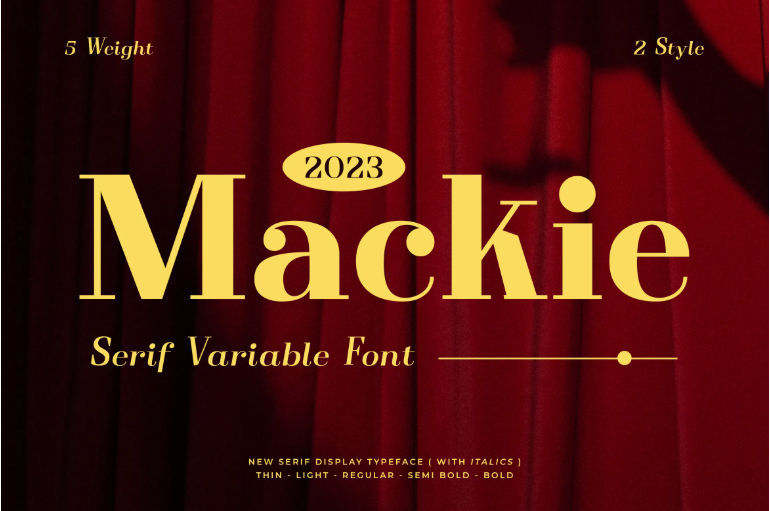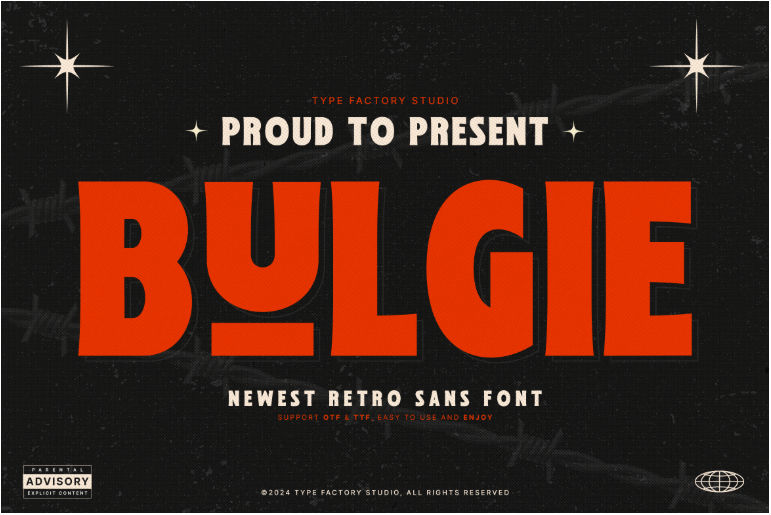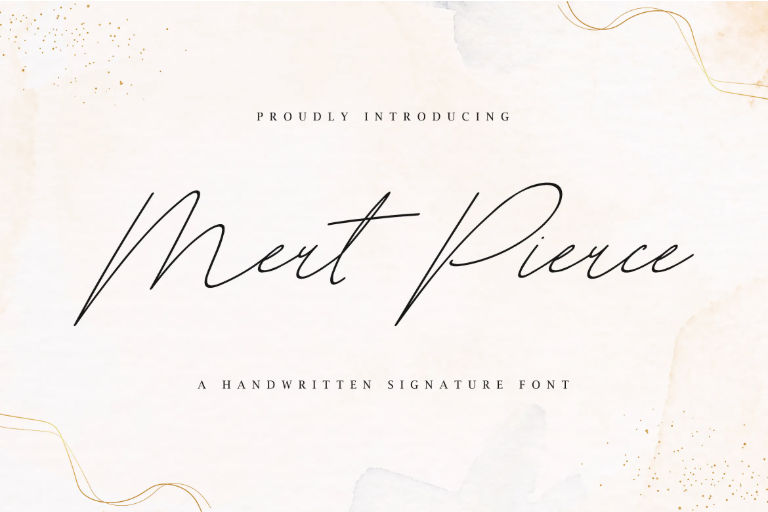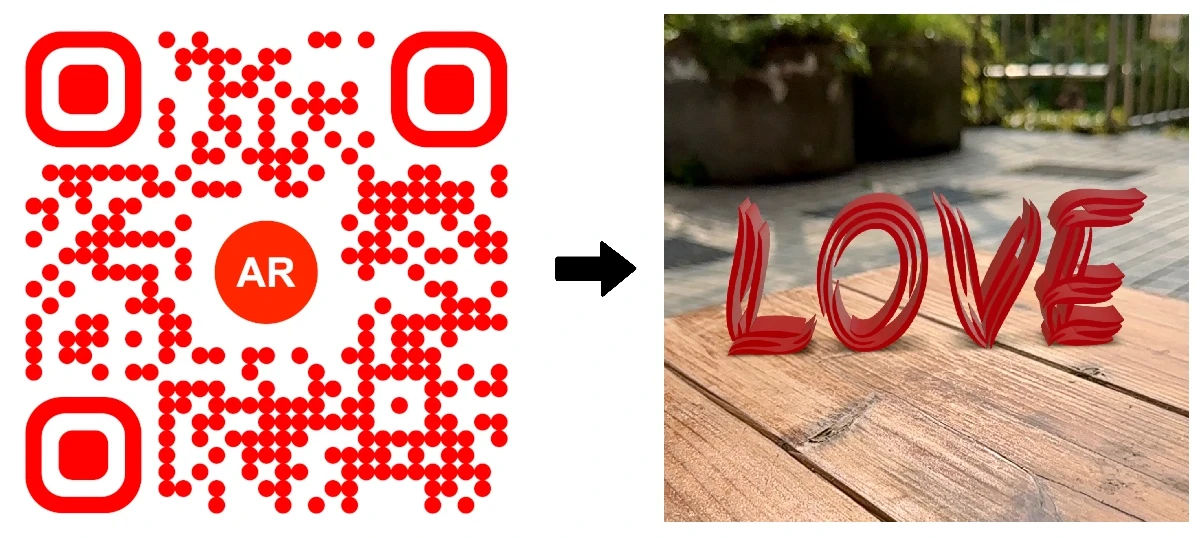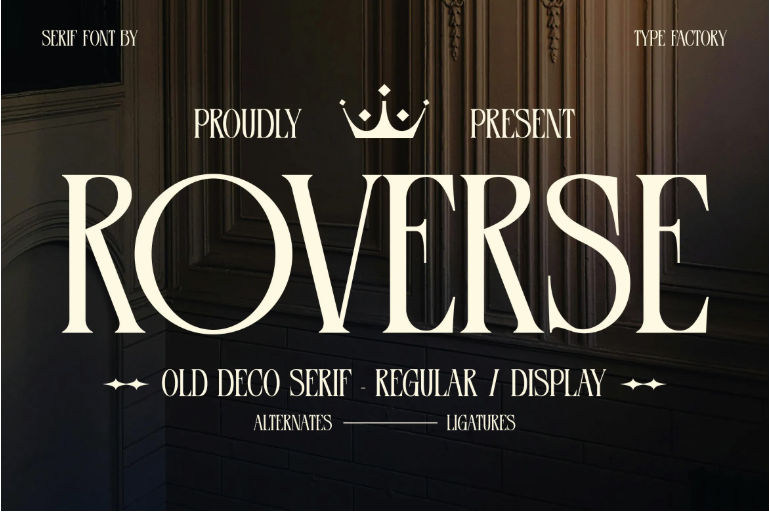
Top 8 Font Design Trends for 2025 – Best Typography Styles to Watch
The Evolution of Font Design Trends in 2025
Typography is constantly evolving, and 2025 is set to introduce some groundbreaking font design trends. Designers are finding fresh ways to mix creativity with technology, resulting in exciting new typefaces that enhance branding, user experience, and digital aesthetics. From AI-generated fonts to nostalgic retro styles, this year’s trends focus on flexibility, personality, and function.
If you’re a graphic designer, web developer, or brand strategist, staying updated on the latest font design trends for 2025 will help you create more impactful and modern designs. Let’s explore the biggest typography styles shaping the future of digital and print media.
1. AI-Generated Fonts: The Future of Type Design?
How AI is Transforming Font Creation
Artificial intelligence is revolutionizing font design trends in 2025, allowing designers to craft unique, data-driven typefaces. With AI-assisted design tools, fonts can now be tailored to specific branding needs, making customization easier than ever. AI-generated fonts for graphic design are gaining popularity among creatives looking for originality and efficiency.
font generated by AI launched by Visual Editor by Picsart
Beyond automated type generation, AI tools enhance existing fonts by offering intelligent kerning, automatic readability adjustments, and adaptive font styles that change based on user behavior. As AI advances, expect to see fonts that dynamically shift based on context, improving readability across digital platforms.
2. Variable Fonts Are Taking Over
Why Variable Fonts Are the Future
Variable fonts have been on the rise, but in 2025, they’re set to become an industry standard. These fonts offer multiple styles in one file, making digital design more efficient and dynamic. More websites and apps are using variable fonts for modern typography, ensuring seamless, adaptive typography that enhances UI/UX performance.
By reducing the number of font files needed, variable fonts improve website performance, leading to faster loading times and better SEO rankings. Brands are leveraging this trend to create personalized typography experiences based on user preferences and device settings.
3. Retro Revival: Nostalgic Typefaces Make a Comeback
The Power of Nostalgia in Design
Everything old is new again! Fonts inspired by the early 2000s, the bold 80s, and groovy 70s are resurging in font design trends for 2025. Whether it’s playful bubble letters or chunky retro serifs, these vintage styles bring warmth and personality to modern branding.
Nostalgia marketing plays a huge role in this trend, as brands use retro-inspired typography to evoke emotions and connect with audiences. Expect to see playful, bubbly fonts in branding, bold 80s-style lettering in fashion, and grunge-style typefaces for edgy advertising.
4. The Rise of Handwritten and Organic Lettering
Adding a Personal Touch to Branding
Consumers crave authenticity, which is why handwritten fonts for branding are gaining traction. These typefaces bring a personal, artistic touch to logos, social media, and packaging, making them a go-to choice for businesses looking to humanize their brand.
Our personalized handwritten font: Mert Pierce. Beautiful yet original handwritted.
From calligraphic scripts to casual doodle-style lettering, handwritten and organic typography creates a sense of craftsmanship and emotional connection. Expect to see more brush-stroke fonts, marker-style typography, and freeform lettering dominating branding and digital media.
5. Maximalist & Experimental Typography
Bold Fonts That Break the Rules
Minimalism is taking a backseat as bold and exaggerated fonts rise in popularity. Designers are experimenting with distorted letterforms, unusual spacing, and high-impact typography to create eye-catching compositions that demand attention.
Ombra style font: Vatic. Our answer to experimental typography.
Maximalist typography is particularly effective in high-energy industries like music, fashion, and gaming, where highly expressive fonts stand out. This trend also includes animated letters, overlapping text layers, and irregularly shaped characters, making typography a dynamic storytelling element.
6. Sustainability-Inspired Fonts
How Eco-Conscious Design is Shaping Typography
With sustainability at the forefront of design, eco-conscious typography is influencing font trends. Fonts that mimic natural textures, organic shapes, and soft curves are becoming popular among brands promoting environmental awareness.